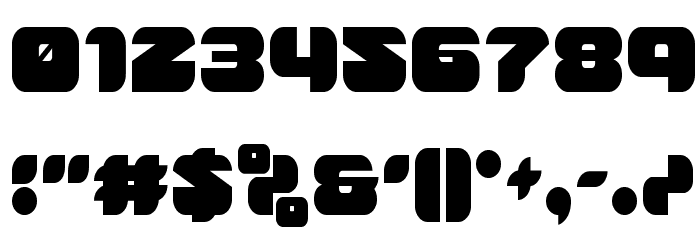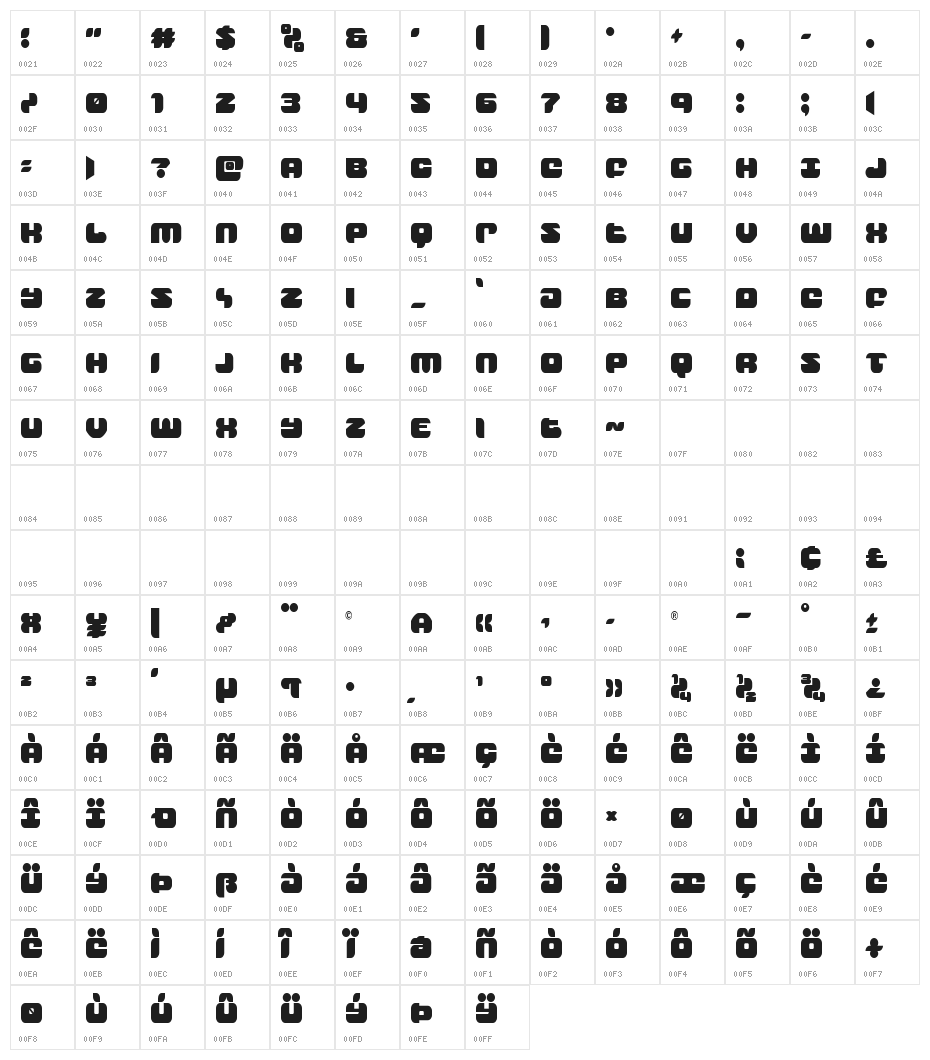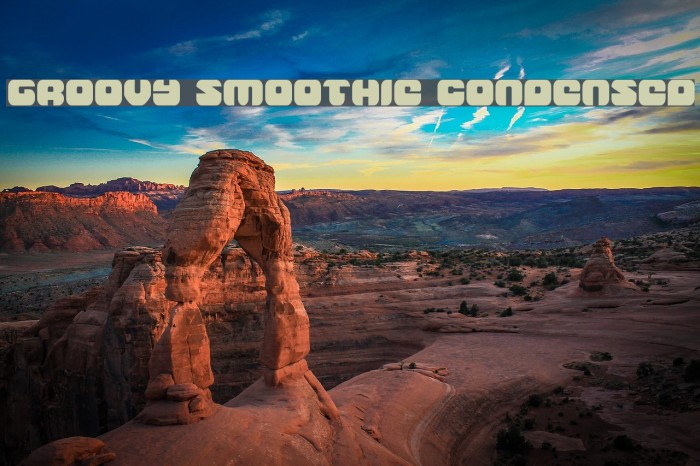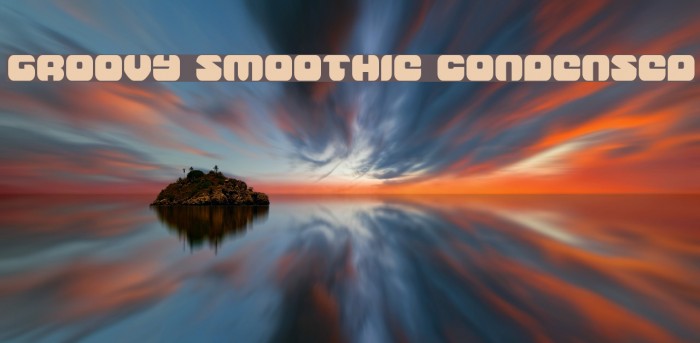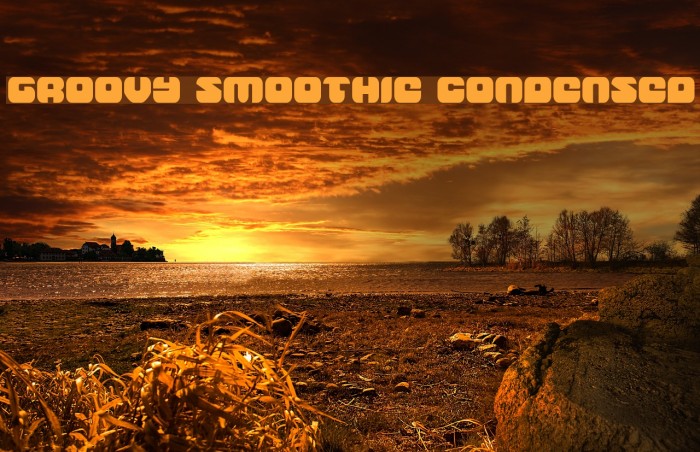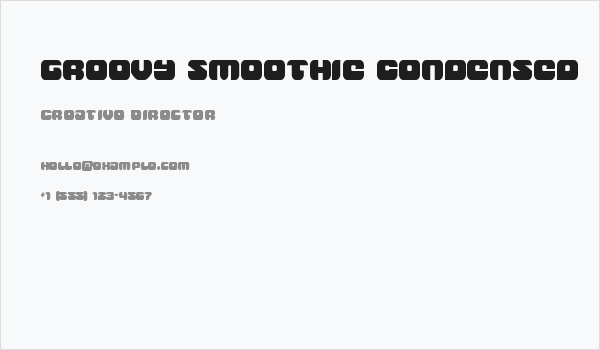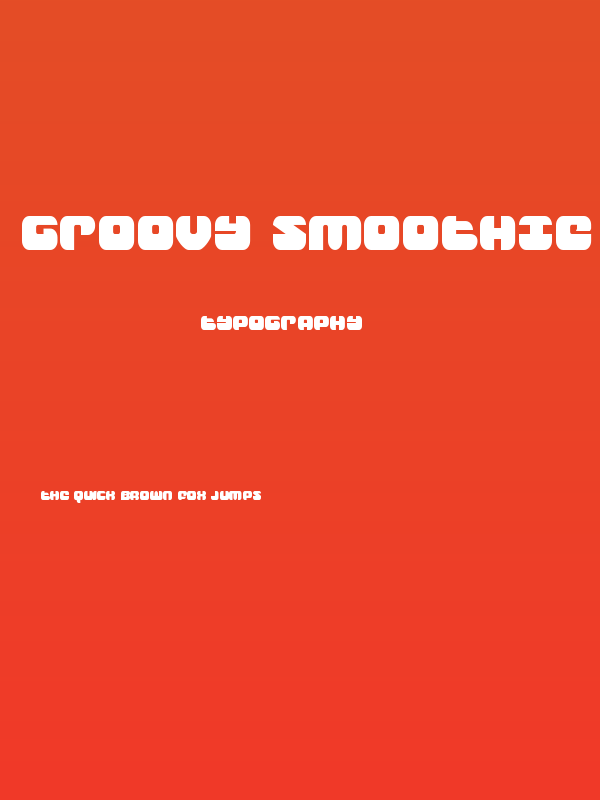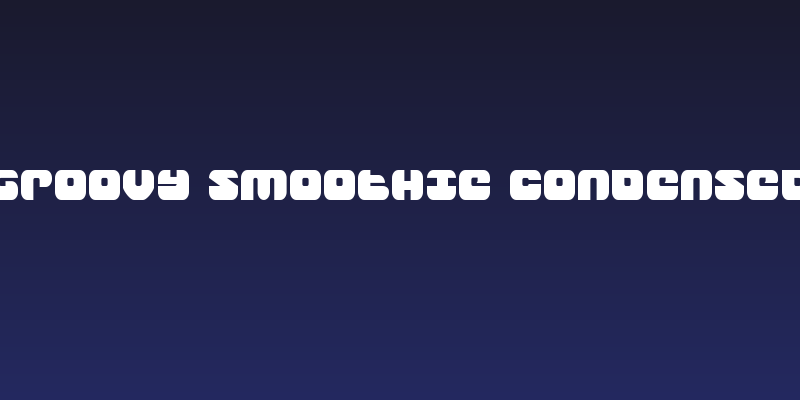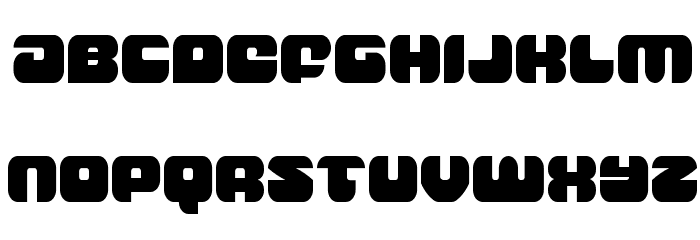
Groovy Smoothie Condensed Font
Groovy Smoothie Condensed Description
This font features a bold and playful design with rounded edges and a smooth, flowing appearance. The characters are condensed, giving them a compact and cohesive look. The uppercase and lowercase letters maintain a consistent style, with a uniform thickness throughout. The numbers and special characters follow the same design principles, ensuring a harmonious overall appearance. This font exudes a retro, groovy vibe, reminiscent of 1970s design aesthetics. Its unique style makes it stand out, while still being legible and versatile for various applications.
| Overall Style | Retro |
| Proposed Projects | Ideal for retro-themed posters, music album covers, branding for creative businesses, and eye-catching headlines. |